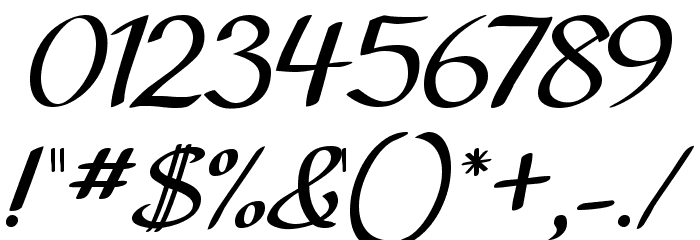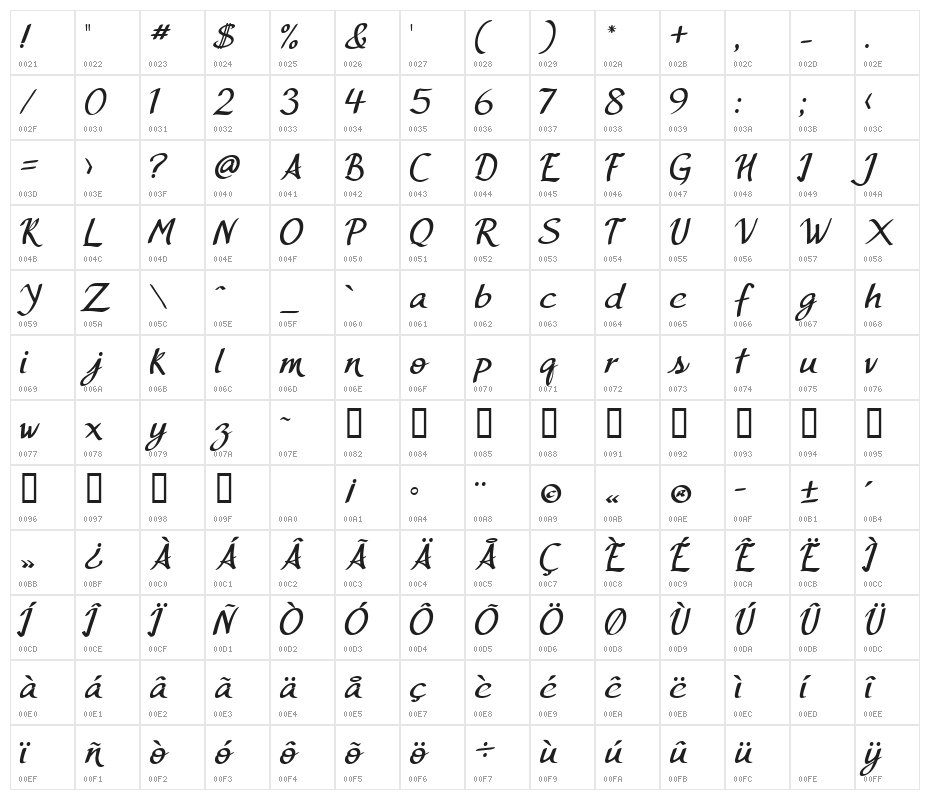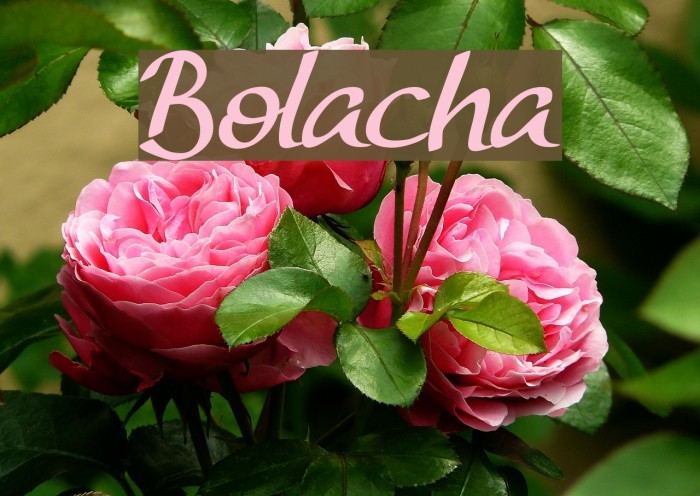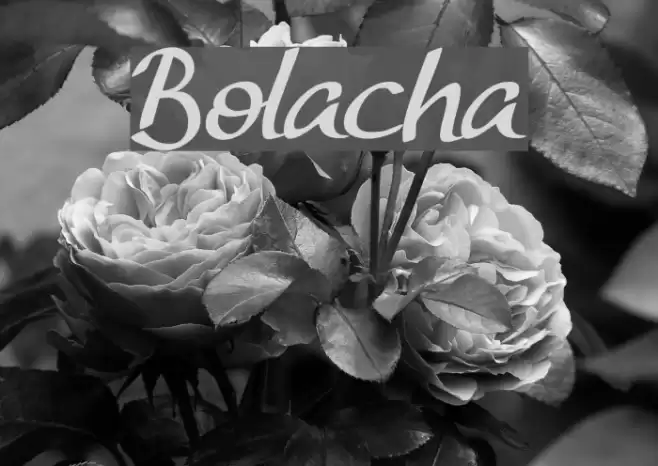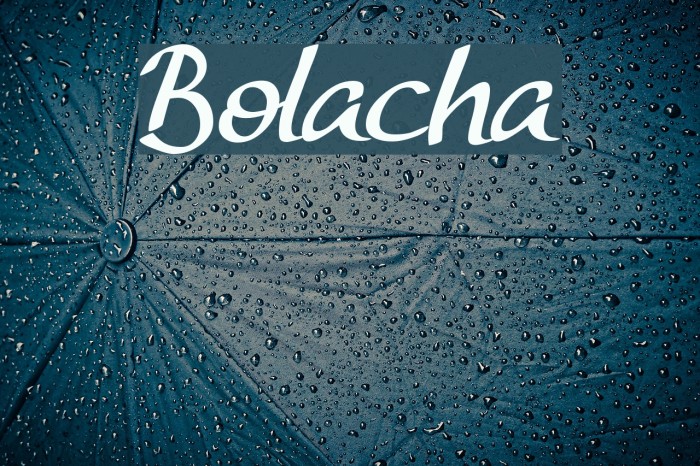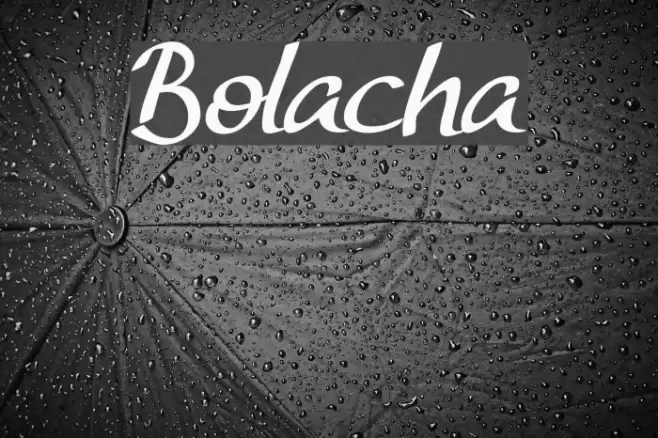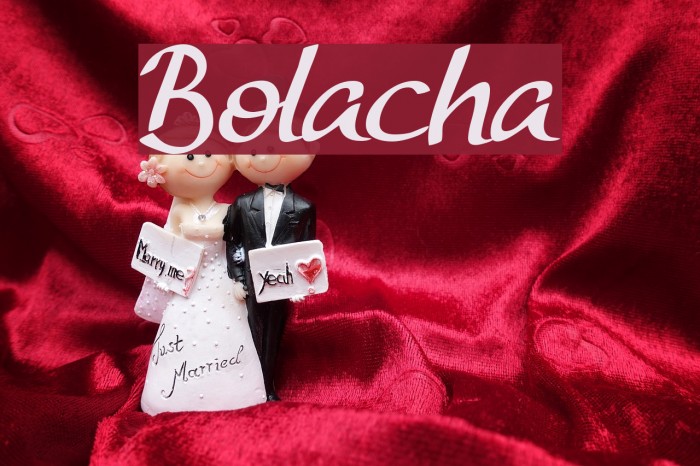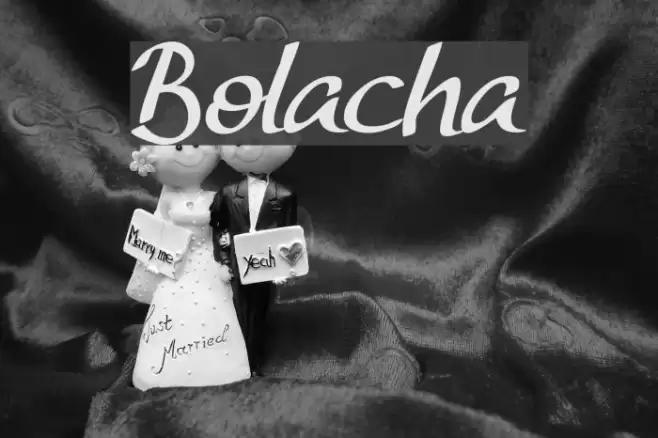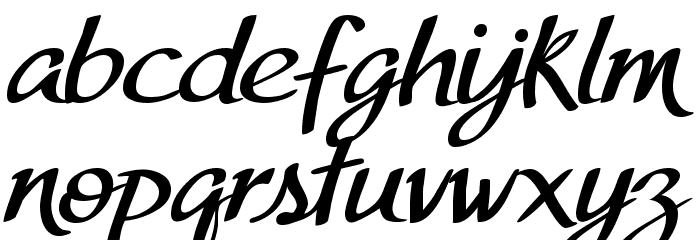
Bolacha Font
Bolacha Description
This font exudes a dynamic and energetic style, characterized by its fluid and cursive script. The letters are elegantly slanted, giving a sense of motion and grace. The strokes are bold and expressive, with varying thickness that adds a lively contrast to the overall appearance. The uppercase letters are slightly more formal, while the lowercase letters maintain a playful and artistic flair. Numbers and special characters are crafted with the same attention to detail, ensuring consistency across all elements. This font is ideal for projects that require a touch of sophistication combined with a creative edge.
| Use Case | Logos, Invitations, Artistic Projects |
| Proposed Projects | Ideal for wedding invitations, branding, logos, and artistic posters. |